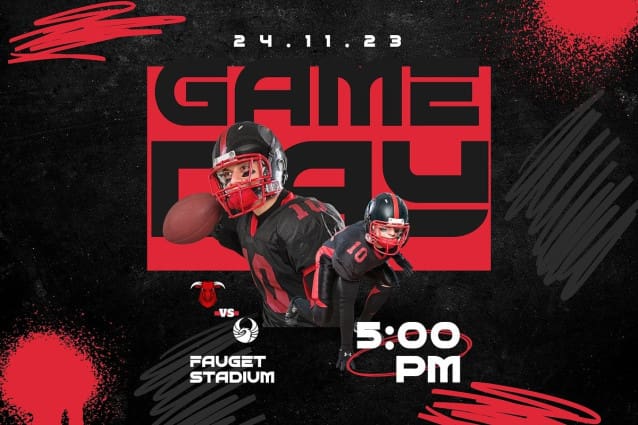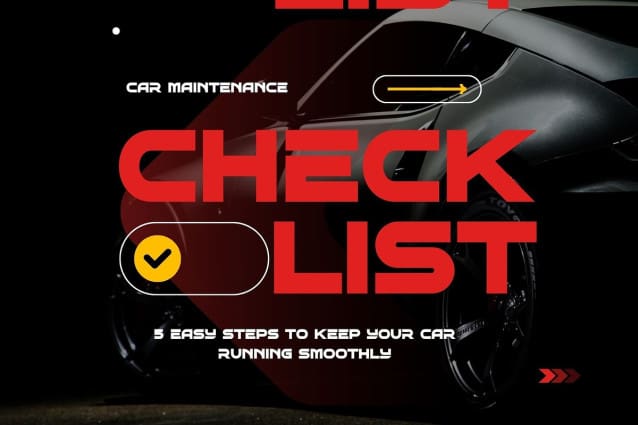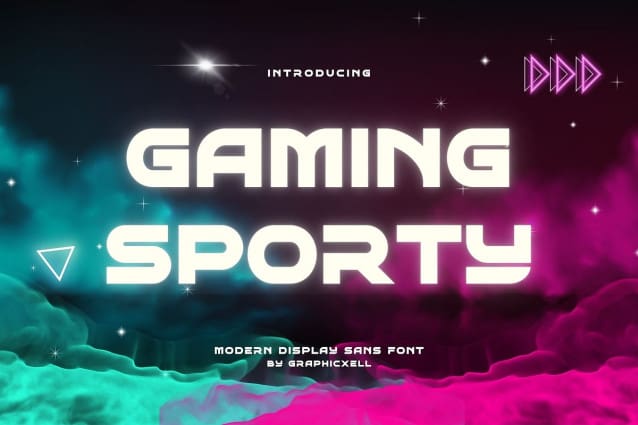
Gaming Sporty Font
Gaming Sporty Font, inspired by the famous minimalist logo perfect for the purposes of designing templates, brochures, videos, advertising branding, logos, invitation, layout design, elegant crafting, beauty design and more.